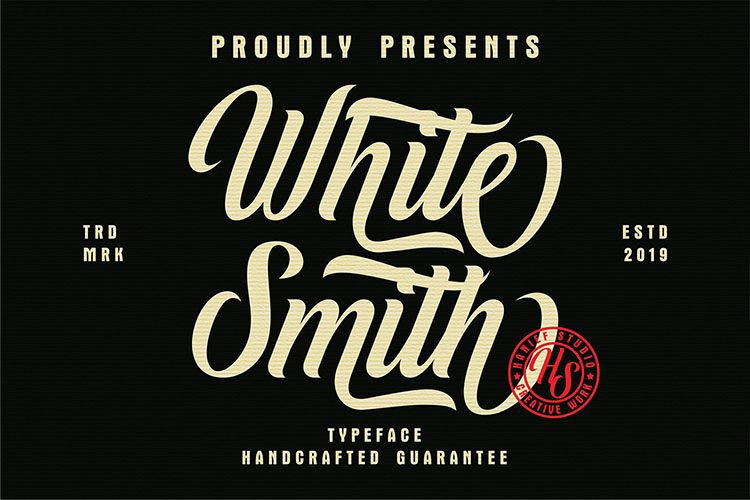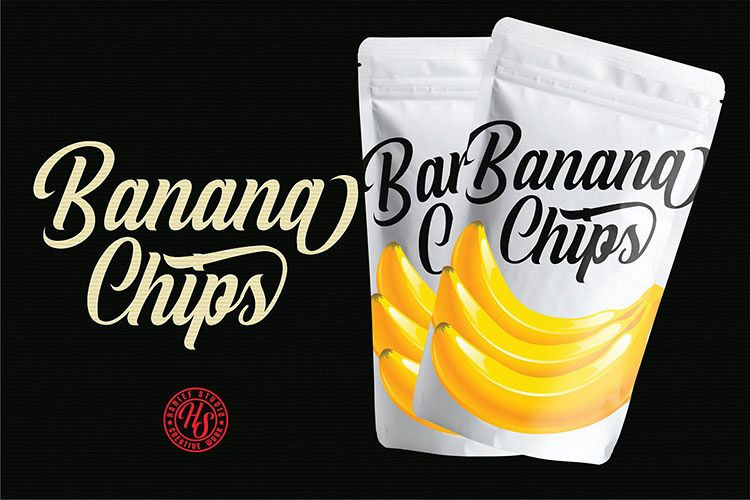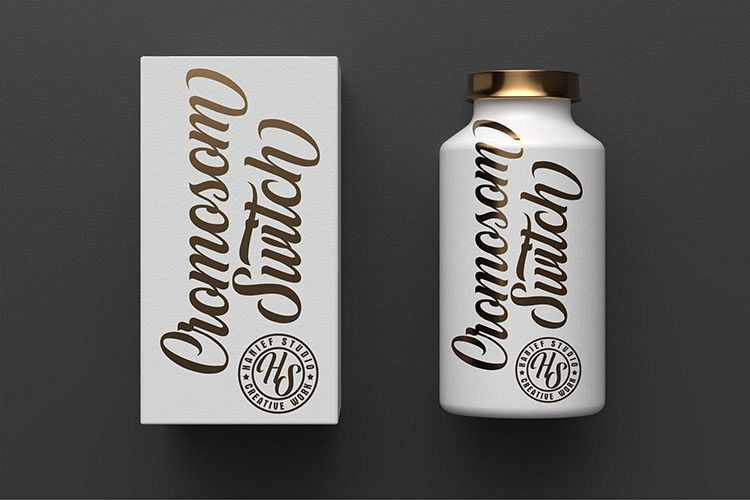
White Smith Script Font
Start the new day with a calligraphy script font. It’s a soft and beautiful font that has a connection to the upper part of the letter, this is something unique but very beautiful, luxury and charming. Introducing White Smith Font. It is designed and shared by HanzelStudio. Inspired by contemporary fashion and streetwear and combination with Hand Lettering style. Ideal for logos, handwritten quotes, product packaging, headers, posters, merchandise, social media & greeting cards.